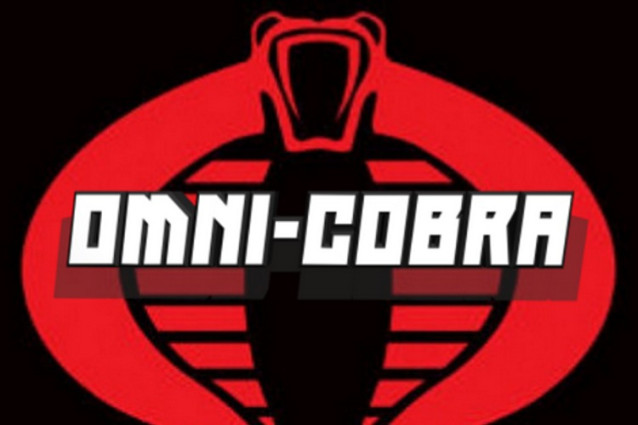
Omni -cobra Font
Omni -cobra Font is a simple and modern display font suitable for quotes, logos, headings, titles, and many more. Use it on any of your creative projects, and your designs will become outstanding!